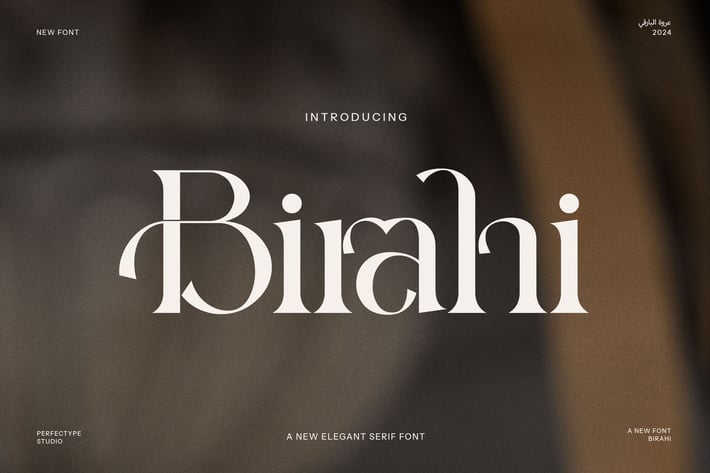
Birahi Ligature Serif Font
Birahi Ligature Serif Font is a striking and sophisticated serif typeface that blends modern elegance with artistic expression. Designed with unique ligatures and alternate characters, Birahi stands out with its refined details and distinctive style, making it the perfect choice for a wide range of creative projects. Whether you're working on branding, logos, websites, or advertising, Birahi adds a touch of luxury and personality that will elevate any design.
What makes Birahi truly exceptional is its intricate ligatures and alternate characters, which offer a level of customization and flexibility not found in many serif fonts. These design features allow you to create custom typographic compositions that are both elegant and memorable, perfect for high-end branding or standout logos. Its sleek lines and sophisticated serifs convey professionalism and class, while the ligatures introduce a sense of flow and creativity.
Ideal for both print and digital use, Birahi Ligature Serif Font is versatile enough for a wide range of applications. From magazine layouts and product packaging to boutique websites and food advertisements, Birahi’s versatility shines across various industries, including fashion, luxury goods, and fine dining. Its modern proportions ensure excellent legibility, while the artistic touches make it perfect for projects where style and sophistication are key.
For anyone seeking a font that combines modern flair with timeless elegance, Birahi Ligature Serif Font is the perfect solution. Its unique ligatures and graceful design make it an essential tool for any designer looking to create a memorable, high-end visual identity.